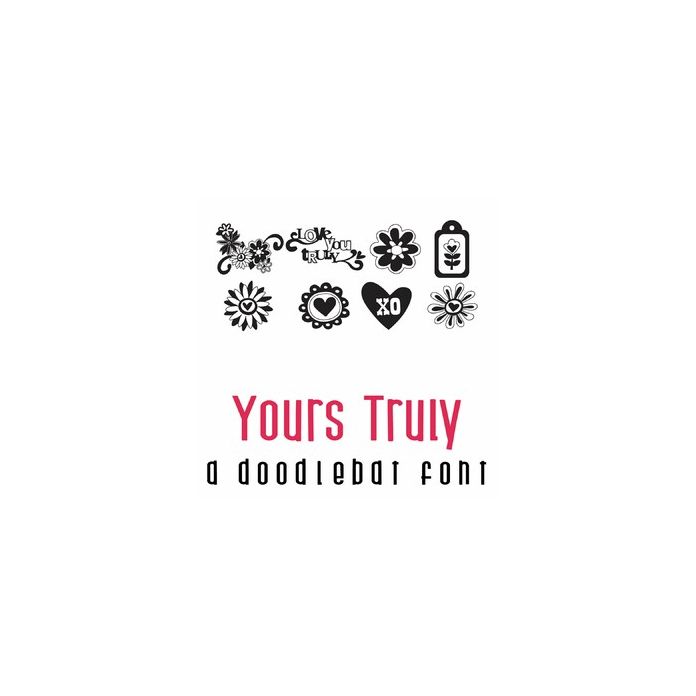
This fun doodlebat font features 26 hears and florals perfect for love. Perfect for cards, crafts, gifts, decor, scrapbook pages, planner stickers and more!